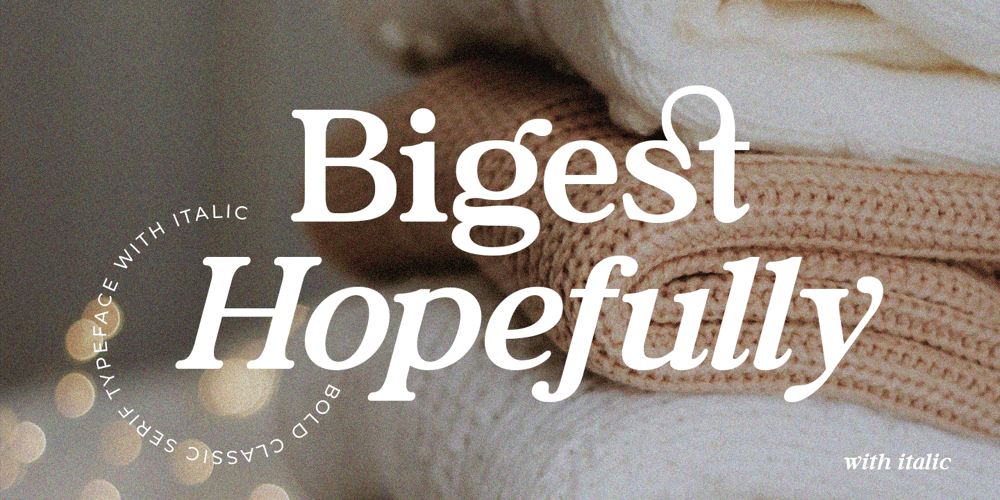
Bigest Hopefully Font Family was designed by Fahmi Iman and published by Spectype. Bigest Hopefully contains 2 styles and family package options. The “Bigest Hopefully” font is a classic serif that is bold and striking, emphasizing strength and a strong presence. Its letterforms feature solid lines and a stable shape, conveying a sense of durability and reliability. The thick design makes it ideal for headings and text that aims to grab attention, while the subtle details on each serif add an elegant touch.The italic variation offers a more dynamic element, introducing a sense of movement without sacrificing visual strength. The slanted letters maintain a balanced proportion, creating an appealing contrast between power and grace. Overall, “Bigest Hopefully” is a perfect choice for designs that require a bold and confident statement.